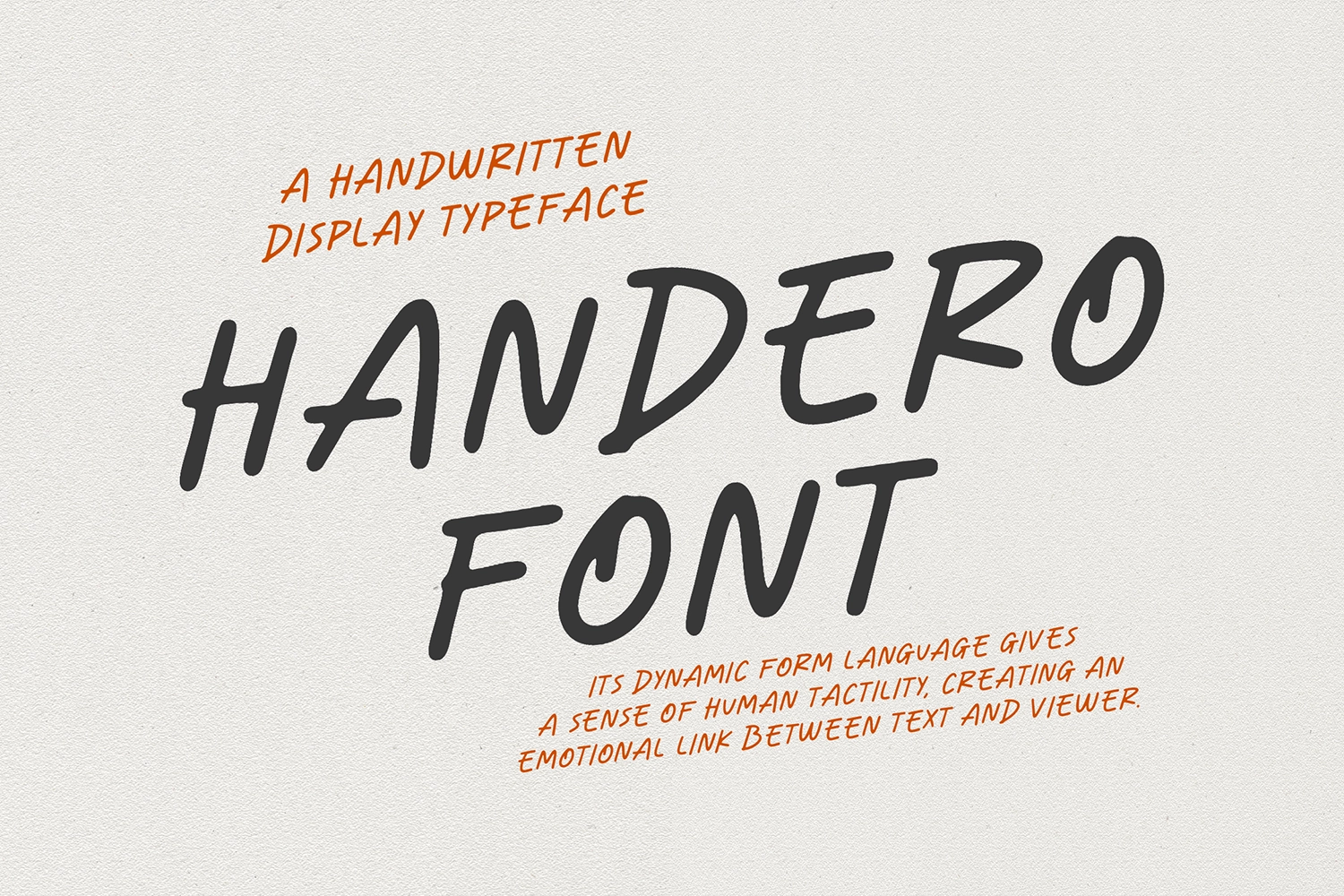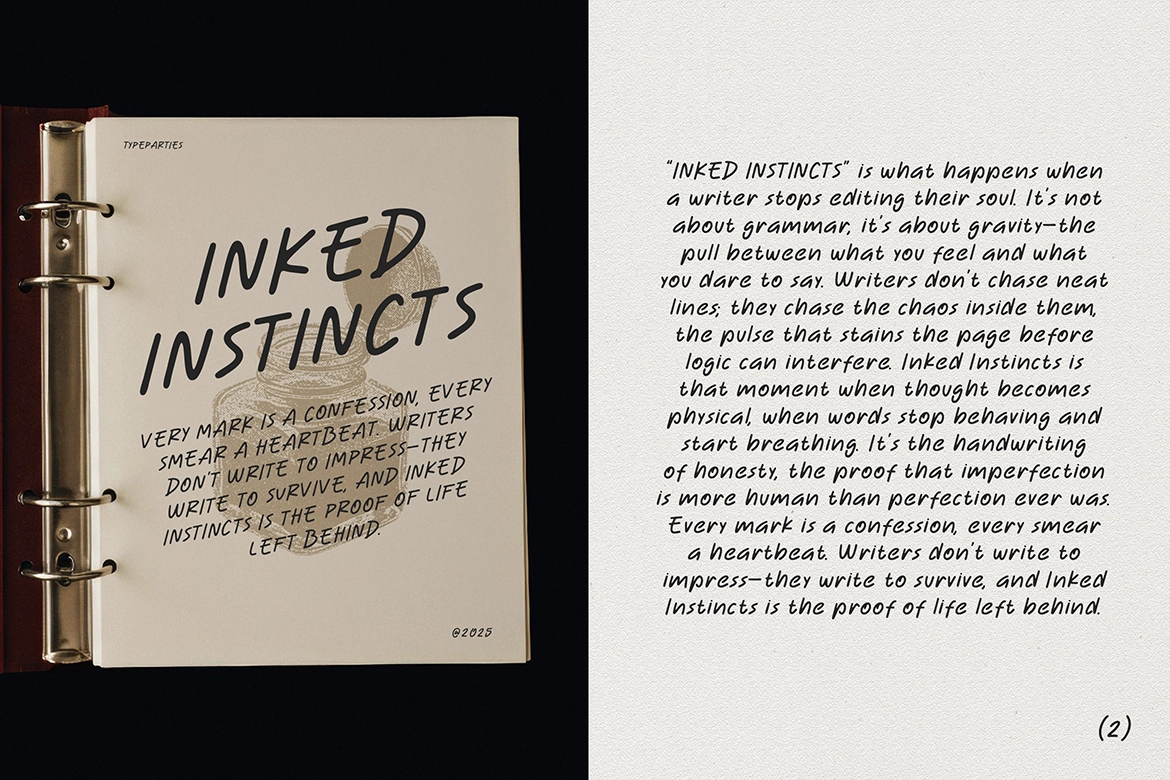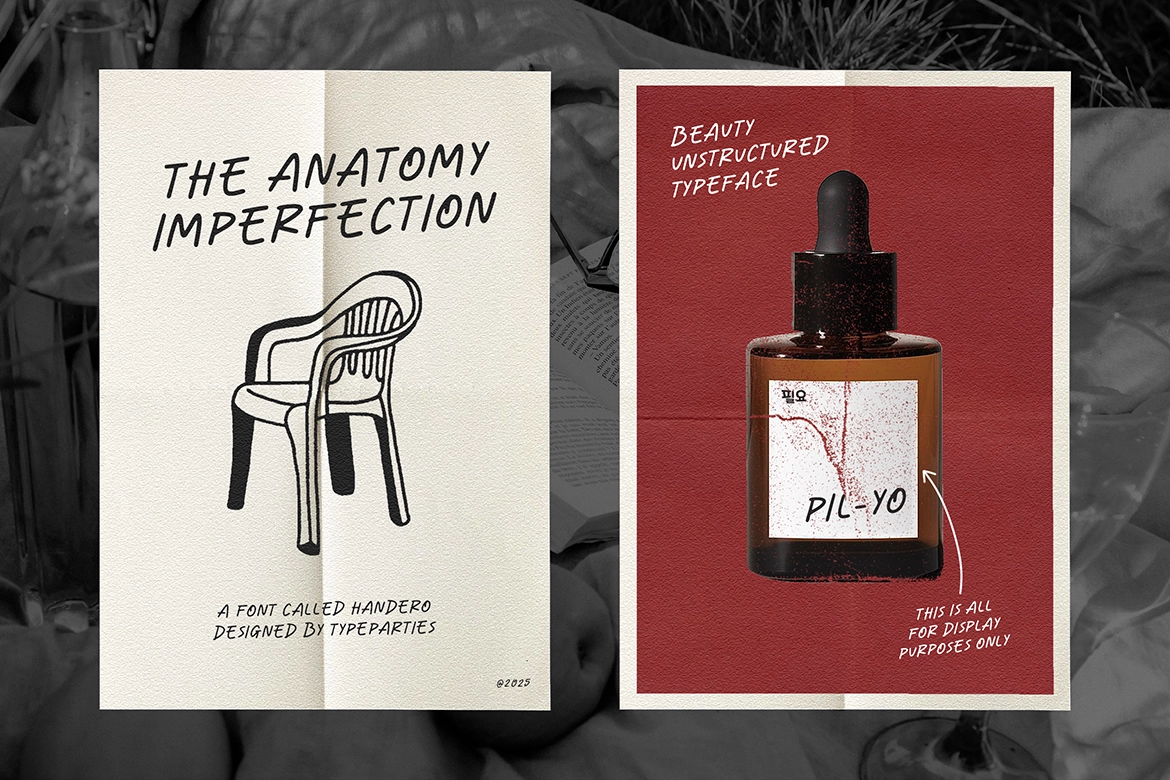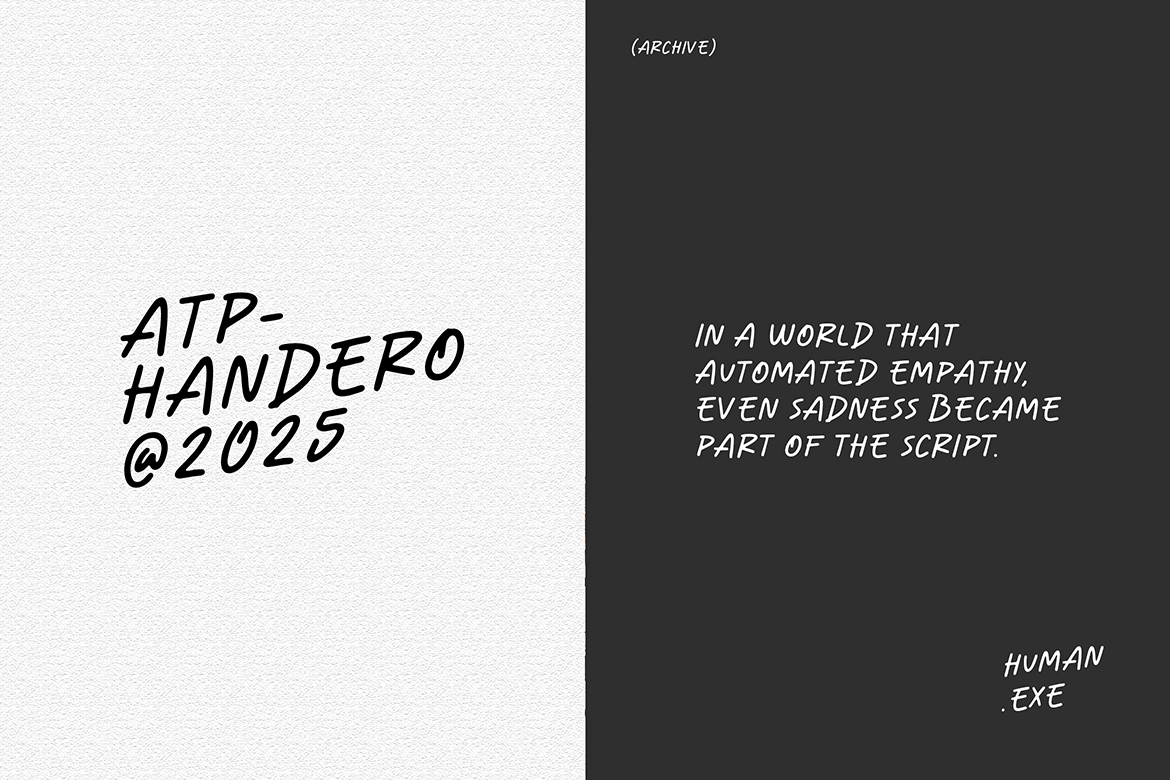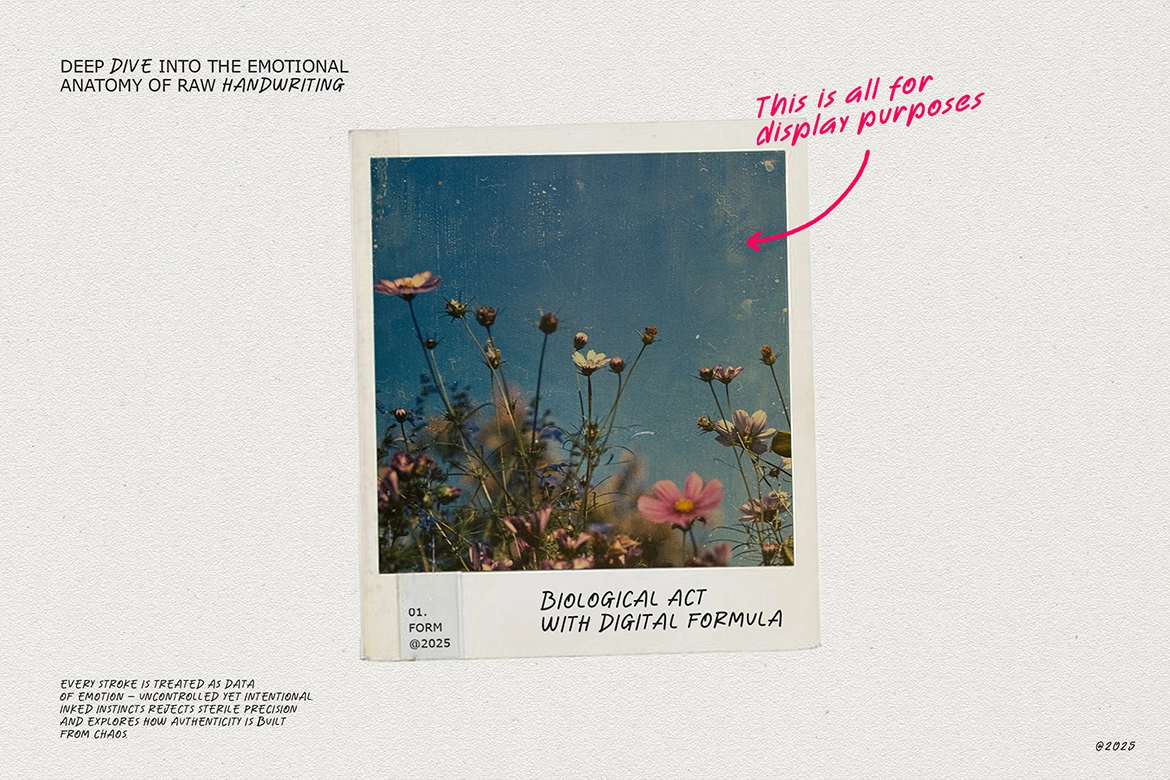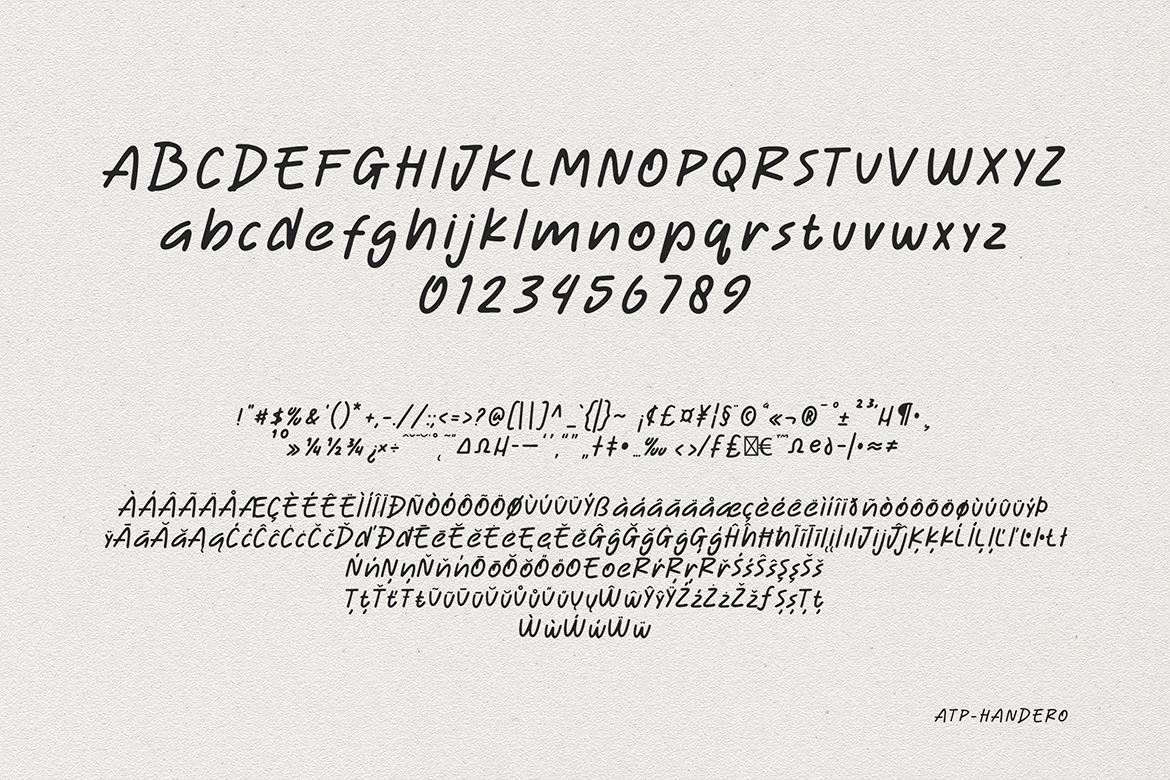
Handero - Expressive Handwritten Display Font
ATP-Handero
Handero – Expressive Handwritten Display Font is inspired by raw notebook sketches and slow, creative mornings. With its natural handwritten flow and slightly imperfect strokes, this typeface captures an authentic, expressive rhythm that feels personal and full of life.
Designed to bring warmth and character to your work, Handero is perfect for branding, packaging, social media graphics, quotes, posters, and creative personal projects. Its organic style adds a human touch that makes any layout feel more approachable and genuine.
Whether you're building a soulful brand identity or adding personality to everyday design, Handero delivers spontaneity, charm, and creative energy.
- Uppercase letters
- Lowercase letters
- Punctuation